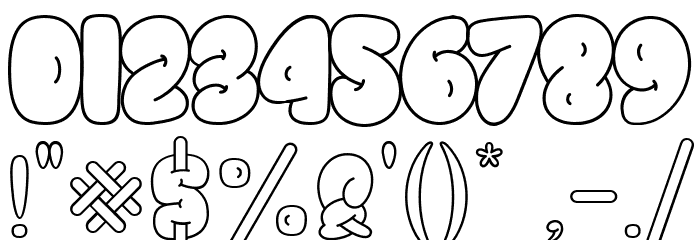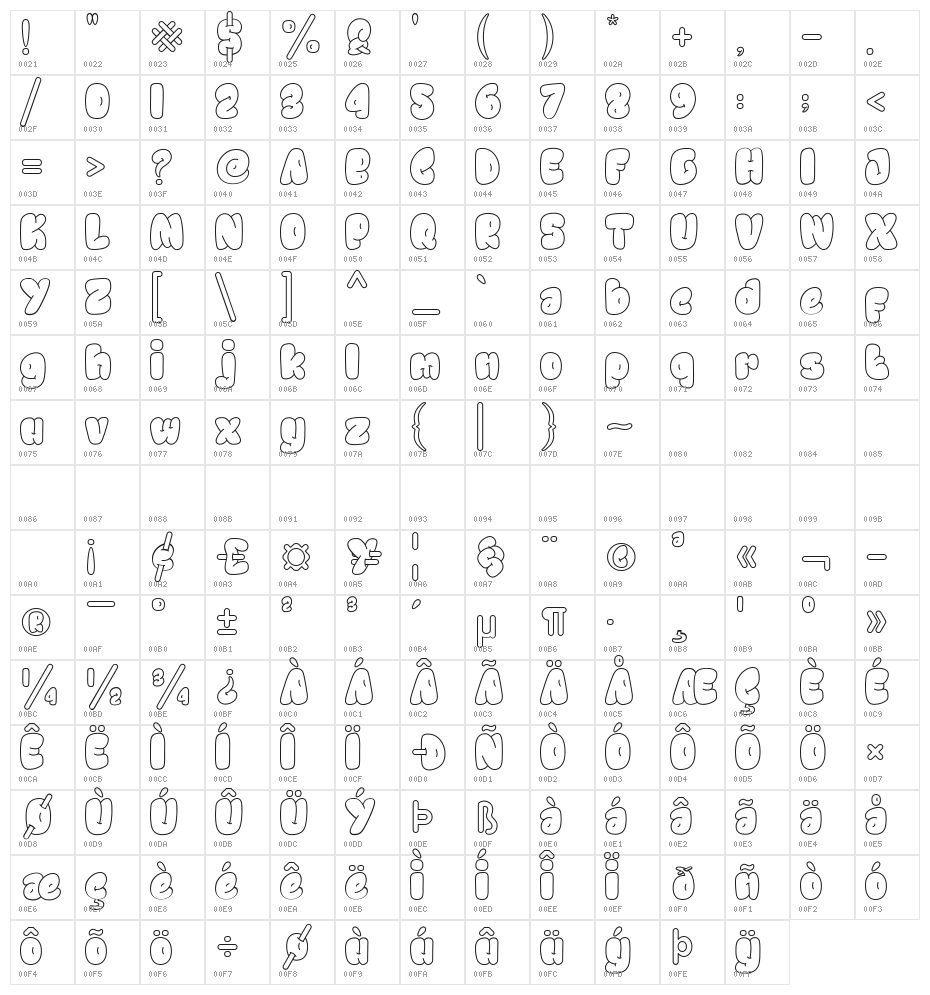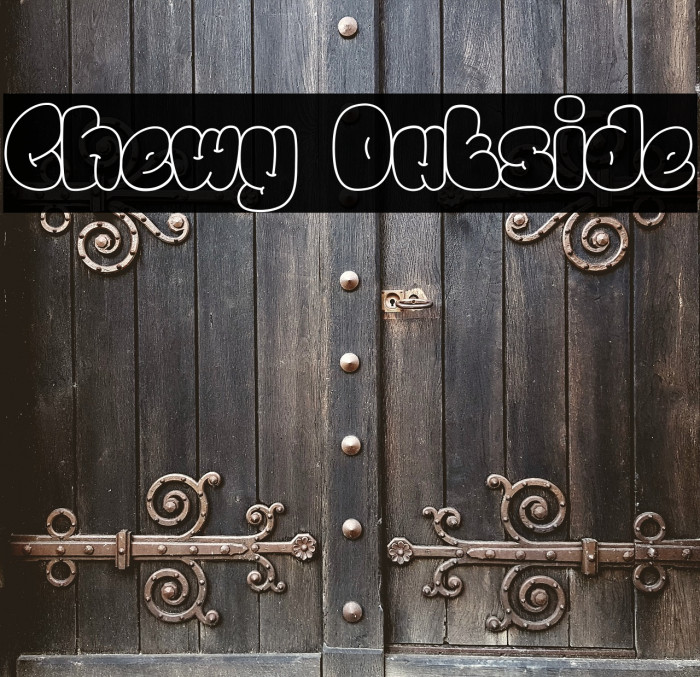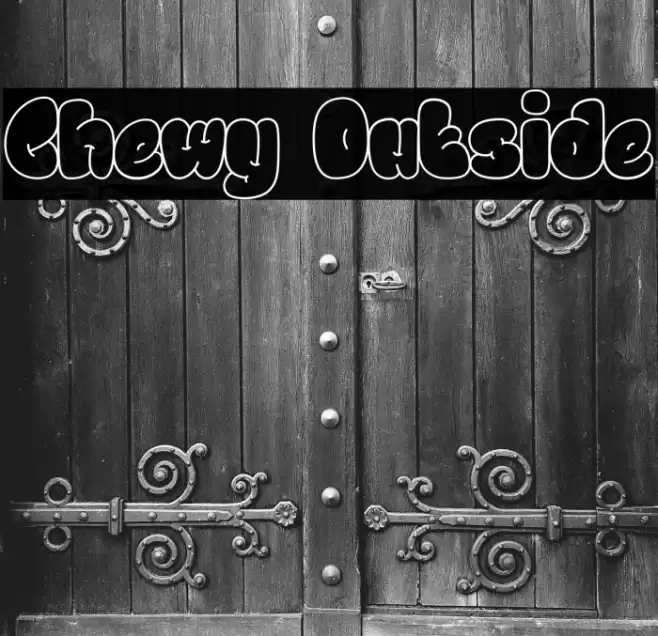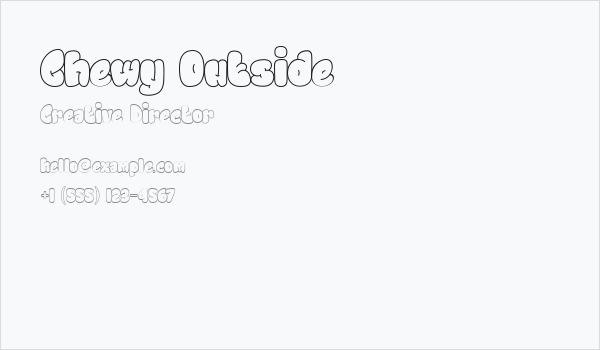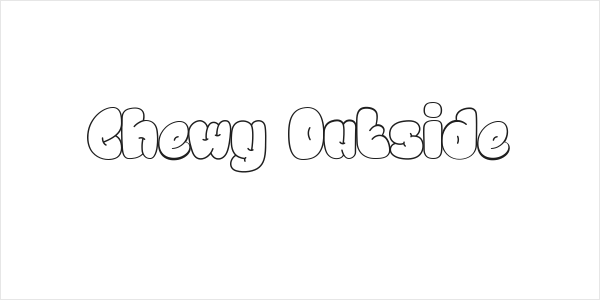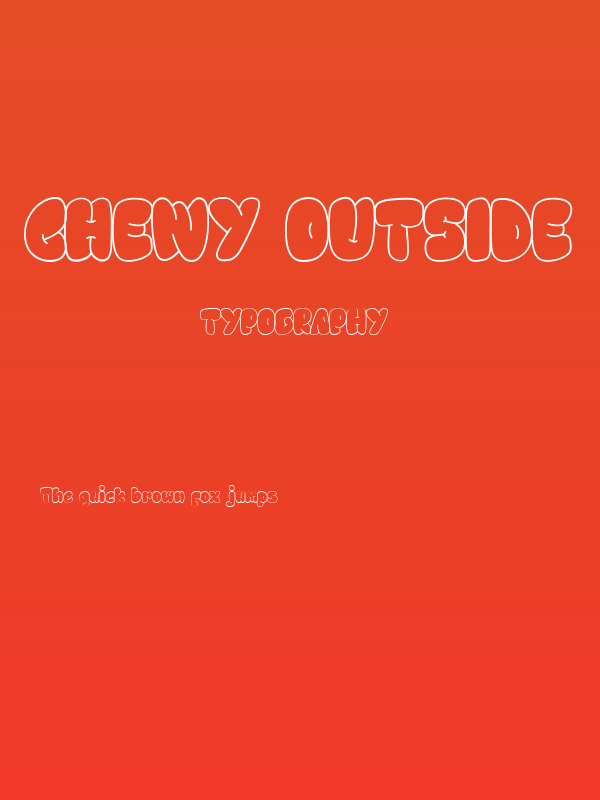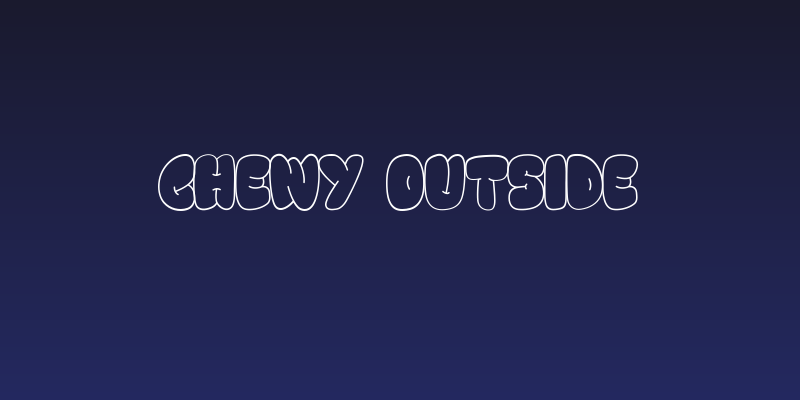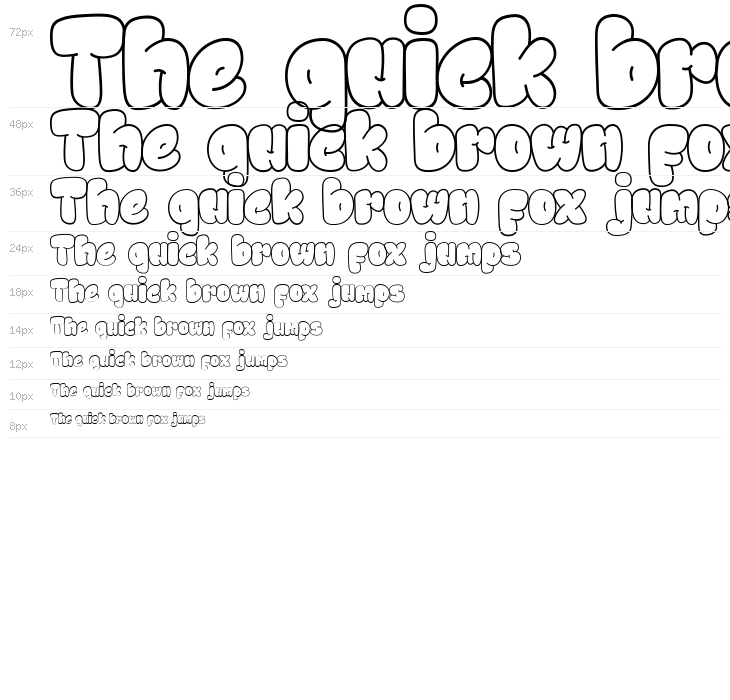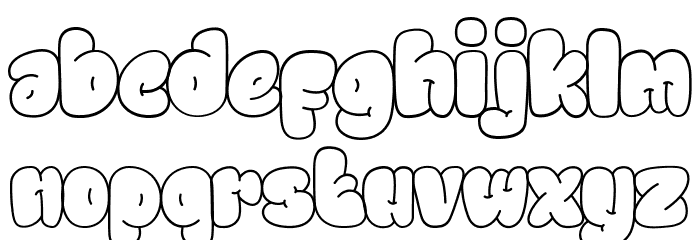
Chewy Outside Font
Chewy Outside Description
This playful and bold font features thick, rounded characters with a bubble-like appearance. The letters are outlined, giving them a distinct, cartoonish style that is both fun and eye-catching. The uppercase and lowercase letters maintain a consistent width, while the numbers and special characters follow the same bubbly aesthetic. The font's design is reminiscent of comic book lettering, making it ideal for projects that require a lively and informal touch. Its unique style is perfect for capturing attention and conveying a sense of whimsy and creativity.
| Overall Style | Playful, Cartoonish, Fun |
| Proposed Projects | Ideal for children's books, comic strips, playful branding, and party invitations. |